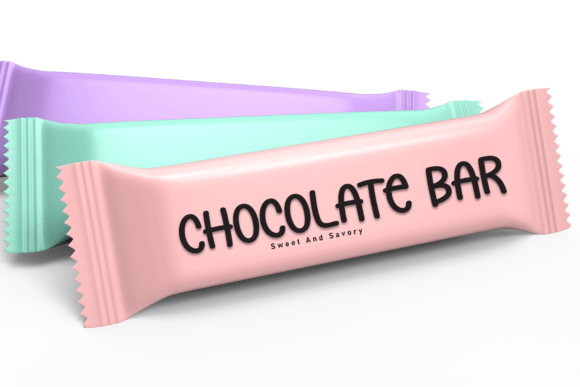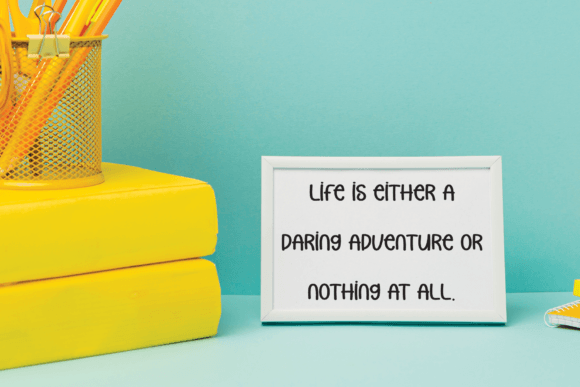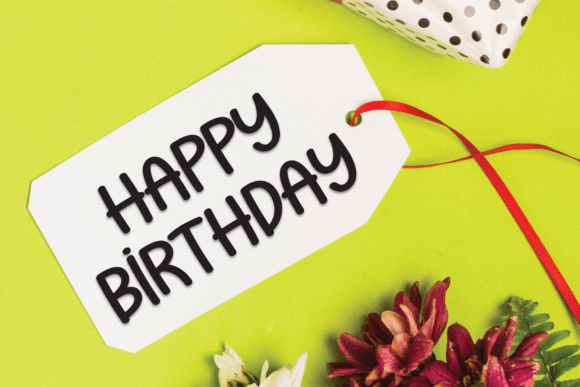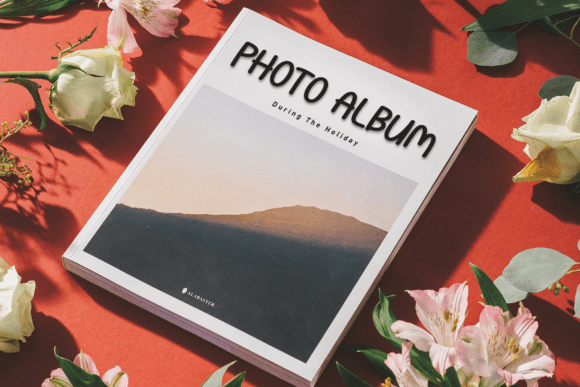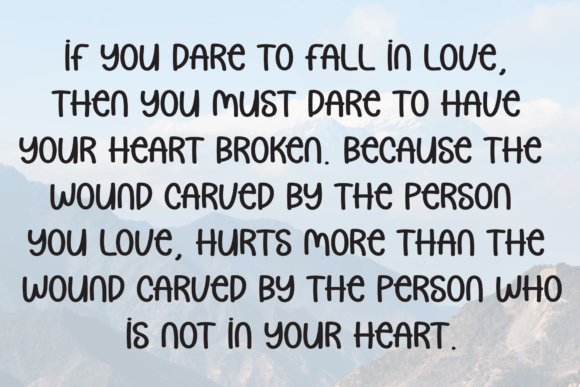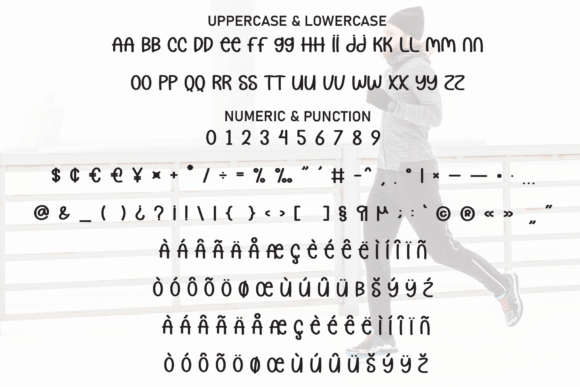
Introduction to Simple Sporty Font
Simple Sporty is a casual handwritten font that captures a relaxed and friendly vibe with its natural, flowing strokes.
Ideal for personal projects, social media, and invitations, it brings an effortless, charming touch to any design The fontโs easygoing style adds warmth and authenticity.